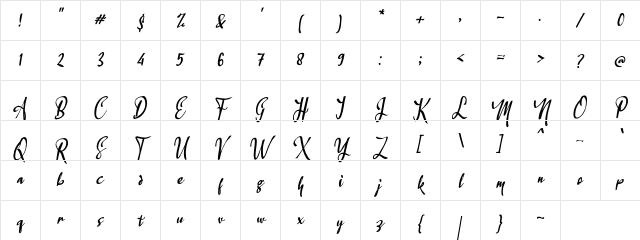
Complete a Sumpah Masih Muda Regular glyph index. Displaying only characters natively supported by a Sumpah Masih Muda Regular font.
a Sumpah Masih Muda is a composed and adaptable typeface that performs quietly and consistently across a wide range of design contexts.